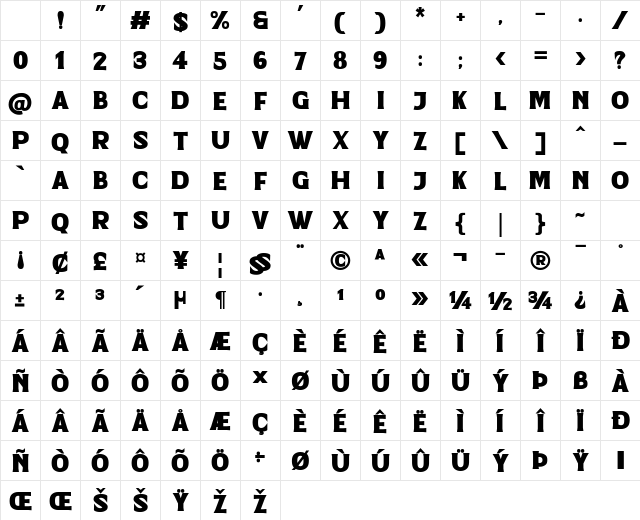
Complete Goldener Bold glyph index. Displaying only characters natively supported by Goldener Bold font.
Goldener is a composed and adaptable typeface that performs quietly and consistently across a wide range of design contexts. Its bold stroke weight gives it real presence on the page.